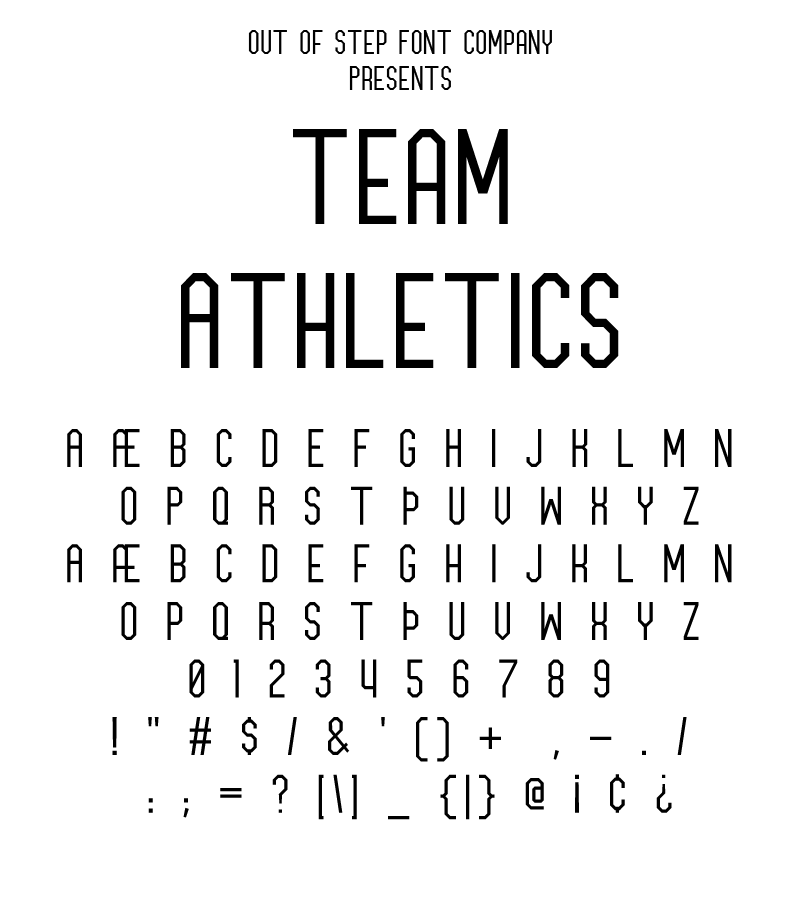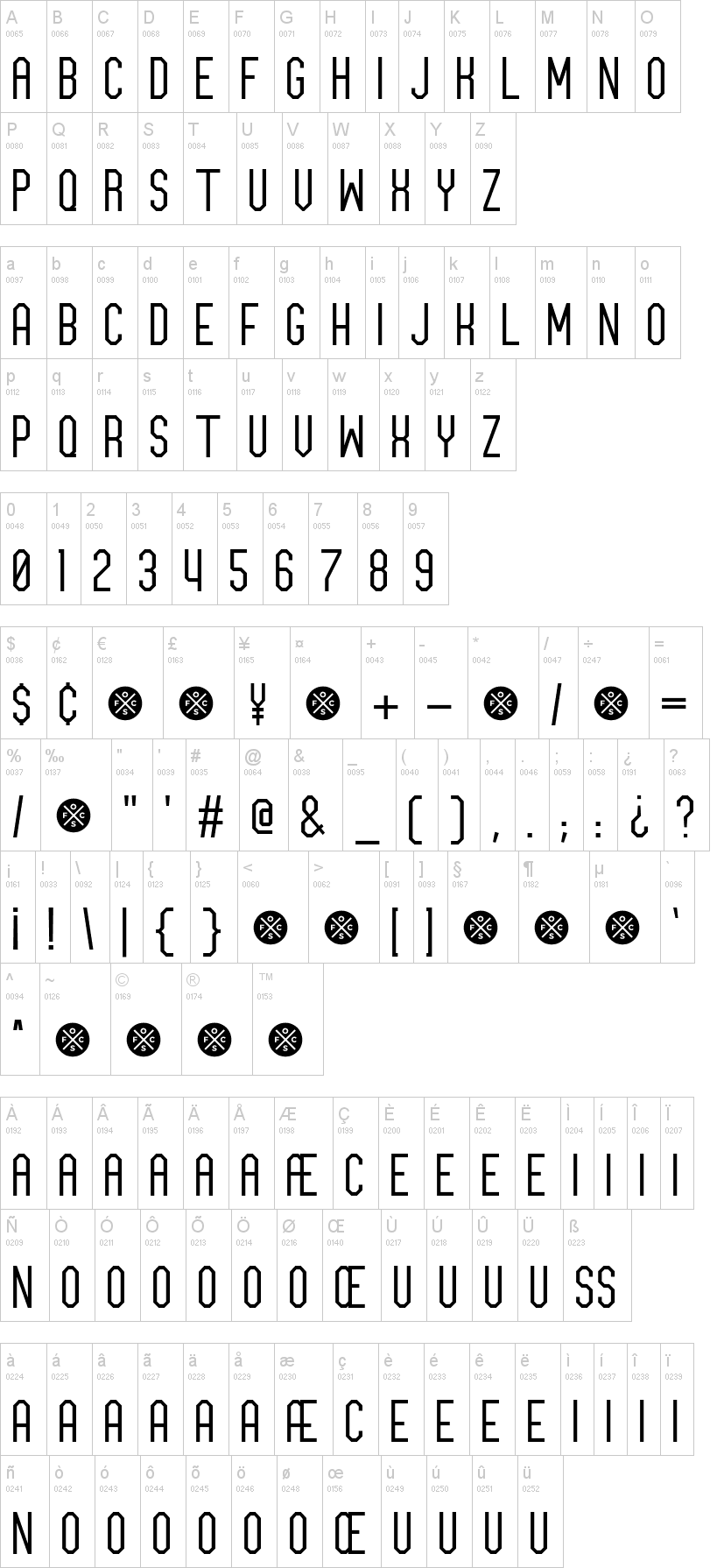
Note of the authorThe Team Athletics beta is a freeware mod of our classic "Team Captain" thin condensed varsity / athletics font. Team Athletics was created from Team Captain by removing spurs, extending cross bars on the E and F, re-designing the M and W, and reducing the curve extension length on the 2, 3, 5, 6, 9, ?, C, G, J, and S characters. We also created a new lowercase set of alternate capitals by moving the cross bars down on the a, b, e, f, g, h, k, p, r, s, x, and y characters.